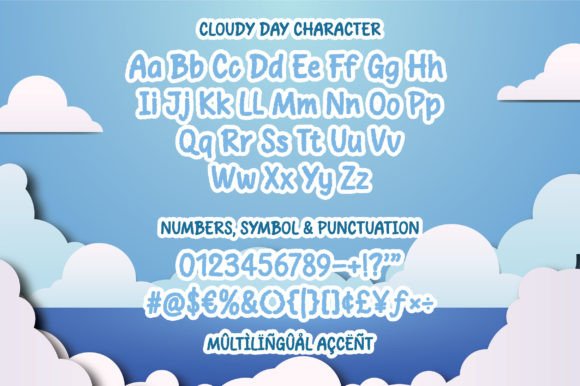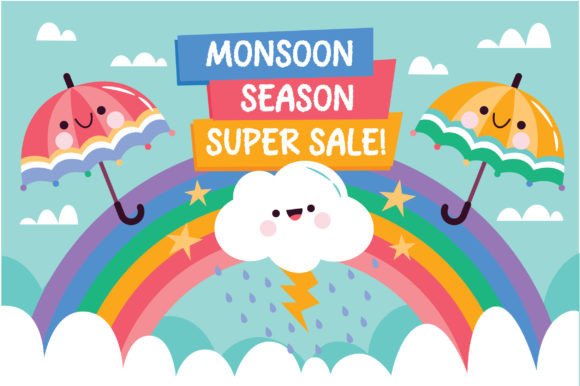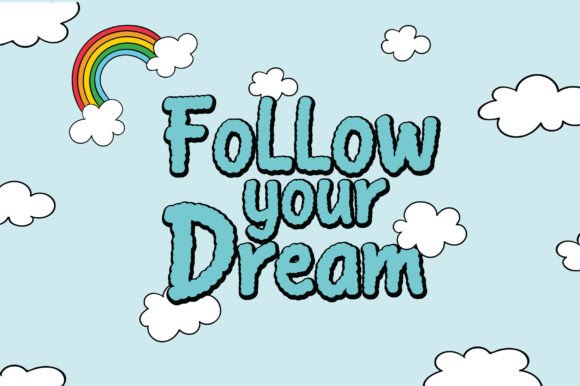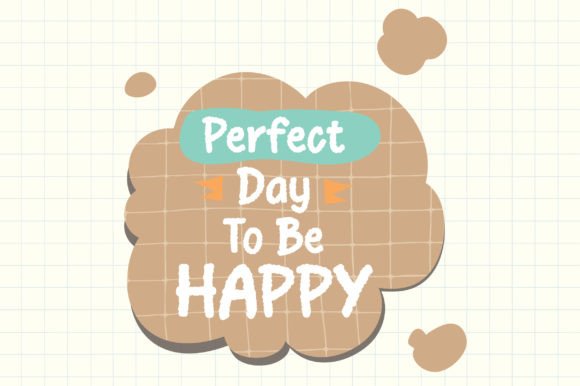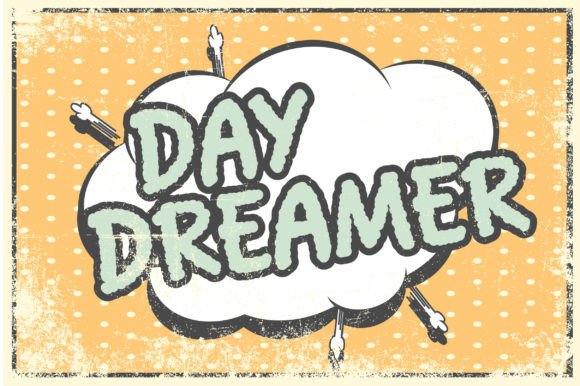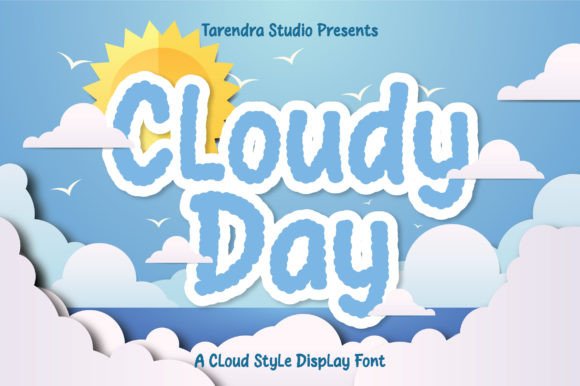
Cloudy Day Font: Elevate Your Design with a Touch of Whimsy
Are you tired of using the same old fonts for your design projects? Look no further than the Cloudy Day font, a charming cloud-themed display font that’s perfect for adding a personal touch to your next creation. In this article, we’ll dive into the world of Cloudy Day font, exploring its features, benefits, and uses, as well as provide tips and inspiration for designers and crafters.
What is Cloudy Day Font?
Cloudy Day font is a unique and eye-catching display font that captures the soft, airy feel of clouds. With its playful and whimsical design, this font is ideal for creating logos, quotes, and social media graphics that stand out from the crowd. Whether you’re a designer, crafter, or simply a DIY enthusiast, Cloudy Day font is a versatile and fun addition to your font collection.
Key Features of Cloudy Day Font
- Cloud-themed design: Cloudy Day font features a beautiful, cloud-inspired design that’s sure to add a touch of whimsy to your projects.
- Display font: This font is specifically designed for display purposes, making it perfect for headlines, titles, and short phrases.
- High-quality: Cloudy Day font is crafted with high-quality letters and graphics, ensuring a crisp and clear appearance in any design.
Benefits of Using Cloudy Day Font
So why choose Cloudy Day font for your next project? Here are just a few benefits of using this charming font:
- Adds a personal touch: Cloudy Day font allows you to add a personal touch to your designs, making them more unique and engaging.
- Perfect for social media: This font is ideal for creating social media graphics, quotes, and posts that stand out from the crowd.
- Versatile: Cloudy Day font can be used for a wide range of projects, from logos and branding to crafts and DIY projects.
- Fun and playful: This font adds a fun and playful touch to any design, making it perfect for projects that require a bit of whimsy.
Using Cloudy Day Font: Tips and Inspiration
Now that we’ve explored the features and benefits of Cloudy Day font, let’s dive into some tips and inspiration for using this font in your designs:
- Pair with bold colors: Cloudy Day font looks great paired with bold, bright colors that match the playful feel of the font.
- Use for quotes and phrases: This font is perfect for creating inspirational quotes, phrases, and captions for social media.
- Add to logos and branding: Cloudy Day font can be used to create unique and memorable logos and branding elements.
- Experiment with textures and patterns: Try pairing Cloudy Day font with textures and patterns that match the cloud theme, such as soft gradients or watercolor textures.
Cloudy Day Font in Action
To give you a better idea of how Cloudy Day font can be used in your designs, here are a few examples:
- Social media graphics: Use Cloudy Day font to create eye-catching social media graphics, such as quotes, promotions, and announcements.
- Logos and branding: This font can be used to create unique and memorable logos and branding elements for businesses, products, and services.
- Crafts and DIY projects: Cloudy Day font can be used for a wide range of crafts and DIY projects, such as card making, scrapbooking, and more.
| Author | Tarendra Studio |
In conclusion, Cloudy Day font is a charming and versatile display font that’s perfect for adding a personal touch to your next design project. With its cloud-themed design, high-quality graphics, and ease of use, this font is ideal for designers, crafters, and DIY enthusiasts alike. Whether you’re creating social media graphics, logos, or crafts, Cloudy Day font is sure to bring a touch of whimsy and fun to your designs.